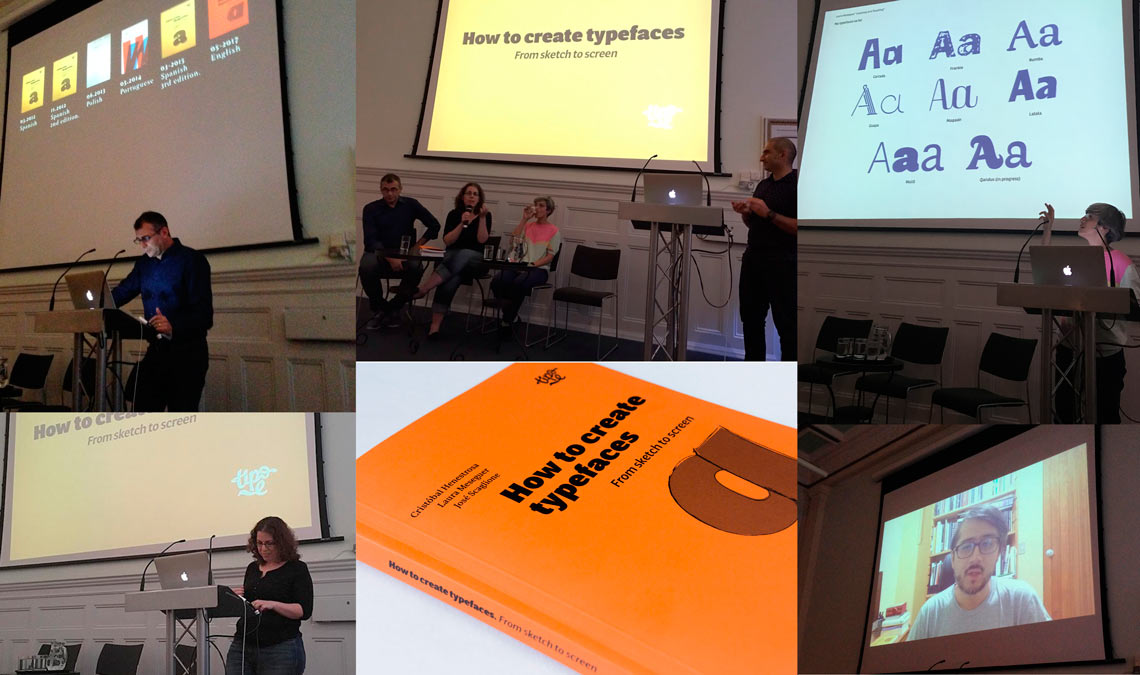
In June 2017, St Bride Library hosted the the book launch of How to Create Typefaces, the English translation of the book Cómo crear tipografías. It was an unprecedented evening in which the three authors, Cristóbal Henestrosa, Laura Meseguer, and José Scaglione, shared the stage and talked about their relation with this publication — although Cristóbal’s participation was via video. Elena Veguillas and Gerry Leonidas  also participated in the event. St Bride was almost full in a particularly Latin night.
Elena Veguillas, from the publisher‘s team, opened the evening with an introduction about the publication of the Spanish edition and the complexities of a collaborative project. Gerry Leonidas, who participated in the English translation by writing the foreword, reviewed the situation of type design education, in that after nearly two decades of worldwide contribution to practice, it is now seeing global contributions to education and discourse. The three authors added a personal perspective. Cristóbal Henestrosa, via video from Mexico, reflected on his personal relation with the publication. José Scaglione offered a more general perspective on type and his own personal experience, and offered a good piece of advice: ‘Read this and every other book with a critical spirit, which is an essential condition of this profession.’ Laura closed the presentation with an overview of her work as a type designer and as a type educator. Both professions are intertwined and reflected in her writing in How to Create Typefaces.